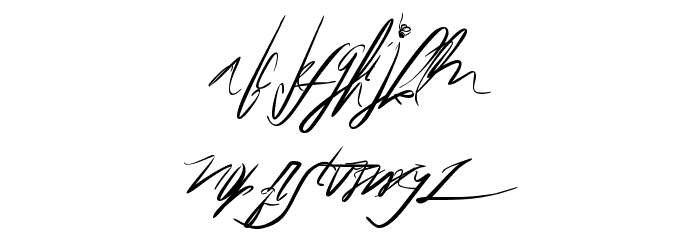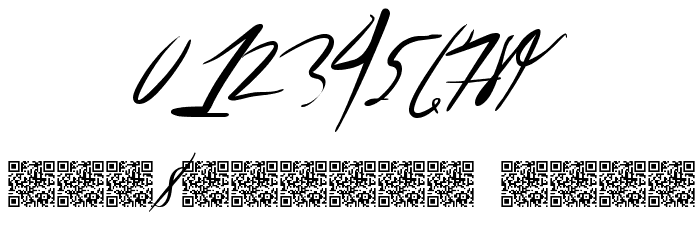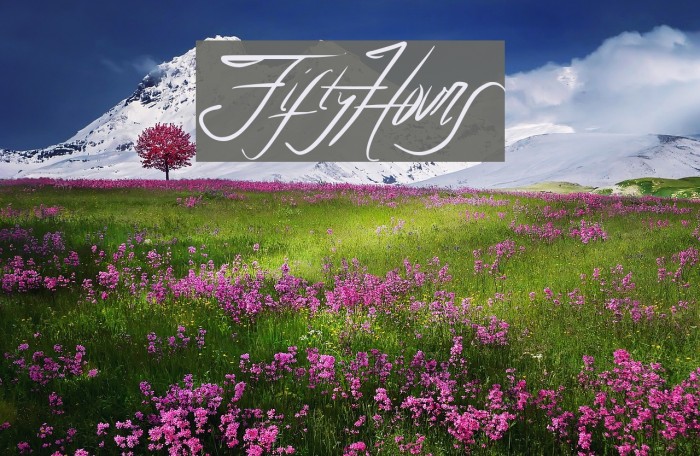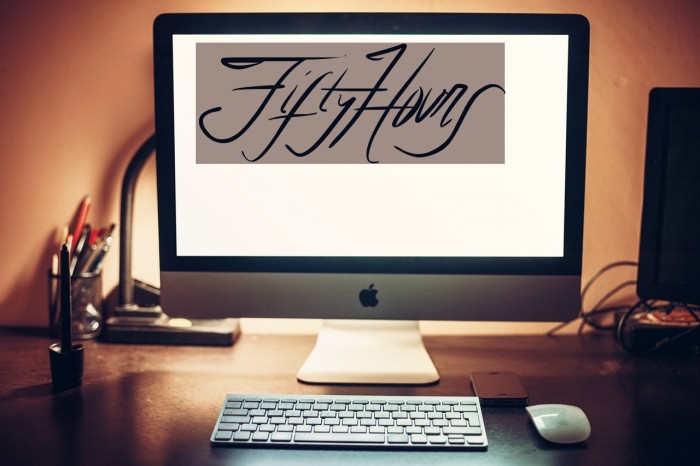
FiftyHours Font
This font exhibits a highly expressive and artistic style, characterized by its fluid, cursive strokes that mimic the natural flow of handwriting. The letters are interconnected with sweeping lines and curves, creating a sense of movement and elegance. The uppercase letters are bold and prominent, while the lowercase letters maintain a delicate and intricate appearance. Numbers and special characters follow the same flowing style, ensuring consistency throughout. The overall design is reminiscent of calligraphy, with a modern twist that adds a unique flair. This font is ideal for projects that require a personal touch or a creative, artistic expression.
An expressive, cursive font with fluid, interconnected strokes and a calligraphic style.
- Proposed Projects: Ideal for wedding invitations, artistic branding, personal stationery, and creative design projects.
- Character Spacing: Tight
- Use Case: Logos, Invitations, Artistic Designs